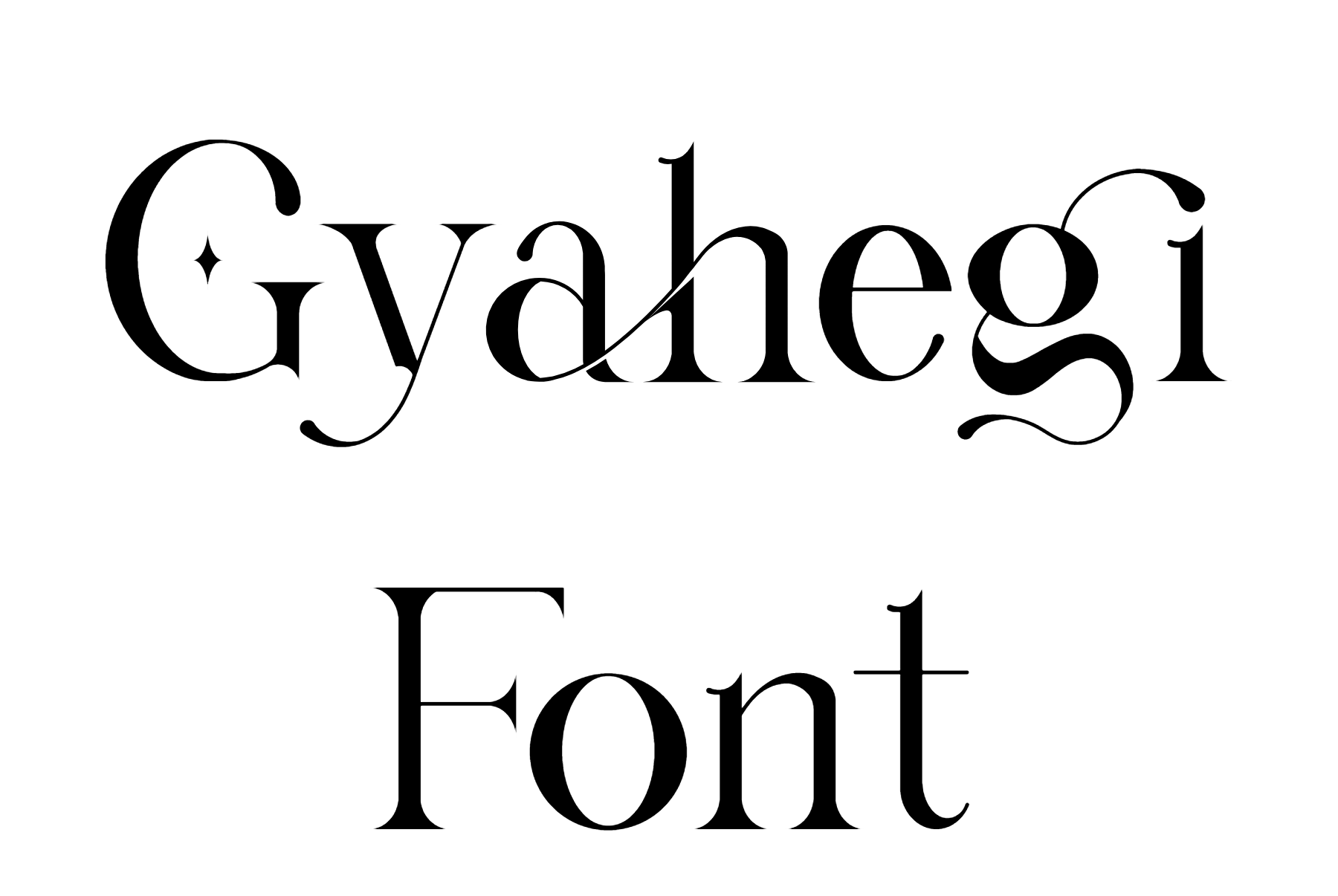
Gyahegi
Gyahegi is a serif font created by Putu Dody Permana (2021). It has the traditional, bookish feel of type you see in novels, newspapers and long-established brands. You can download it for free and test it with your own words in the preview above.
- Designer: Putu Dody Permana
- Glyphs: 226
- Extra characters: 32 copy-and-paste alternates (Private Use Area)
With complete upper and lowercase letters and all ten digits, Gyahegi is ready for real wording, not just a single headline. Everyday marks like &, !, ? and @ are there too. Thanks to its accented letters, it also works for Spanish, French, German, Portuguese and Italian, not just English.
Gyahegi is a natural fit for book covers, magazine headlines and classic branding. Serif fonts shine in headlines and printed text. For long paragraphs on phones, check that it still reads well at small sizes.
Yes. Gyahegi includes the accented letters needed for Spanish, French, German, Portuguese and Italian, so it works for more than just English.